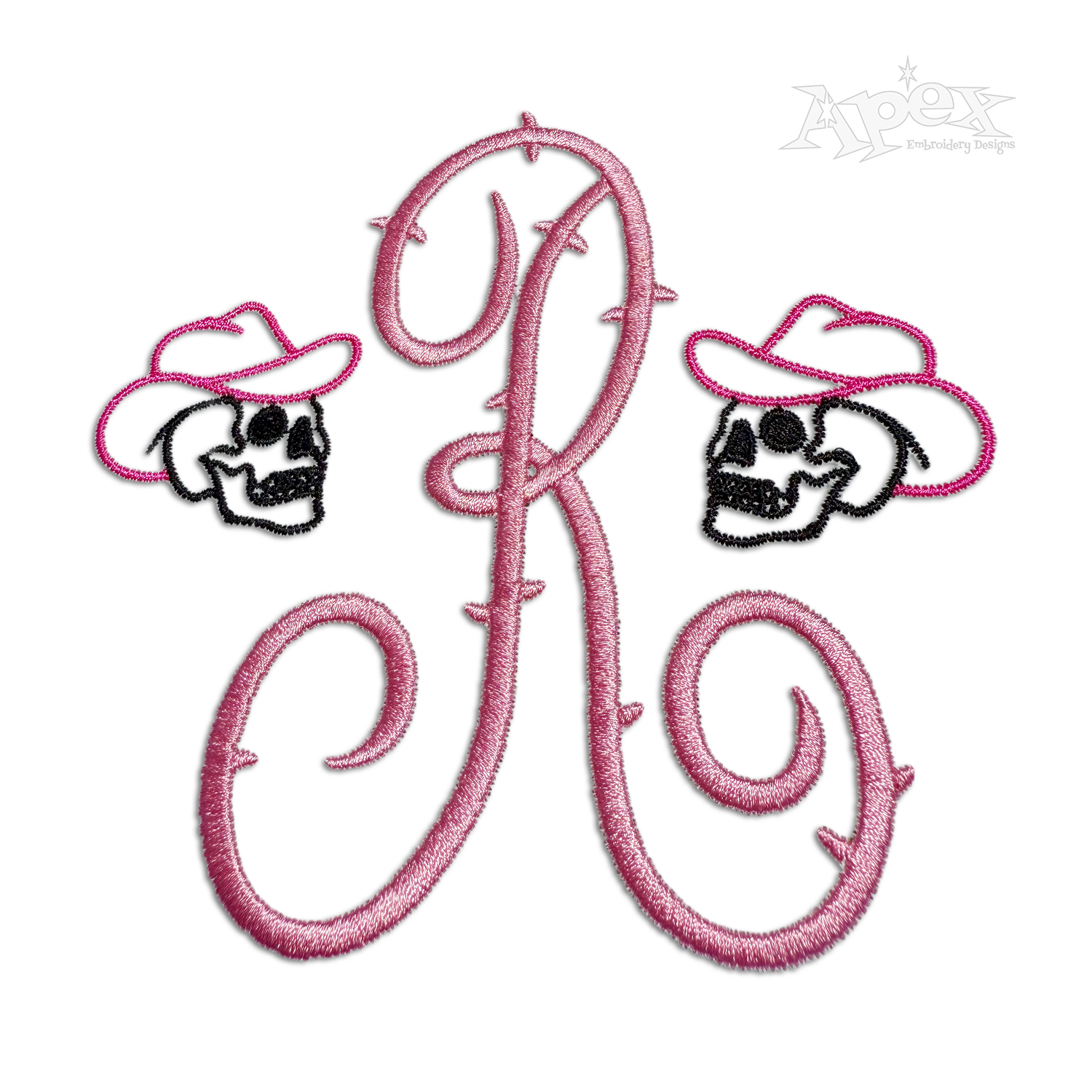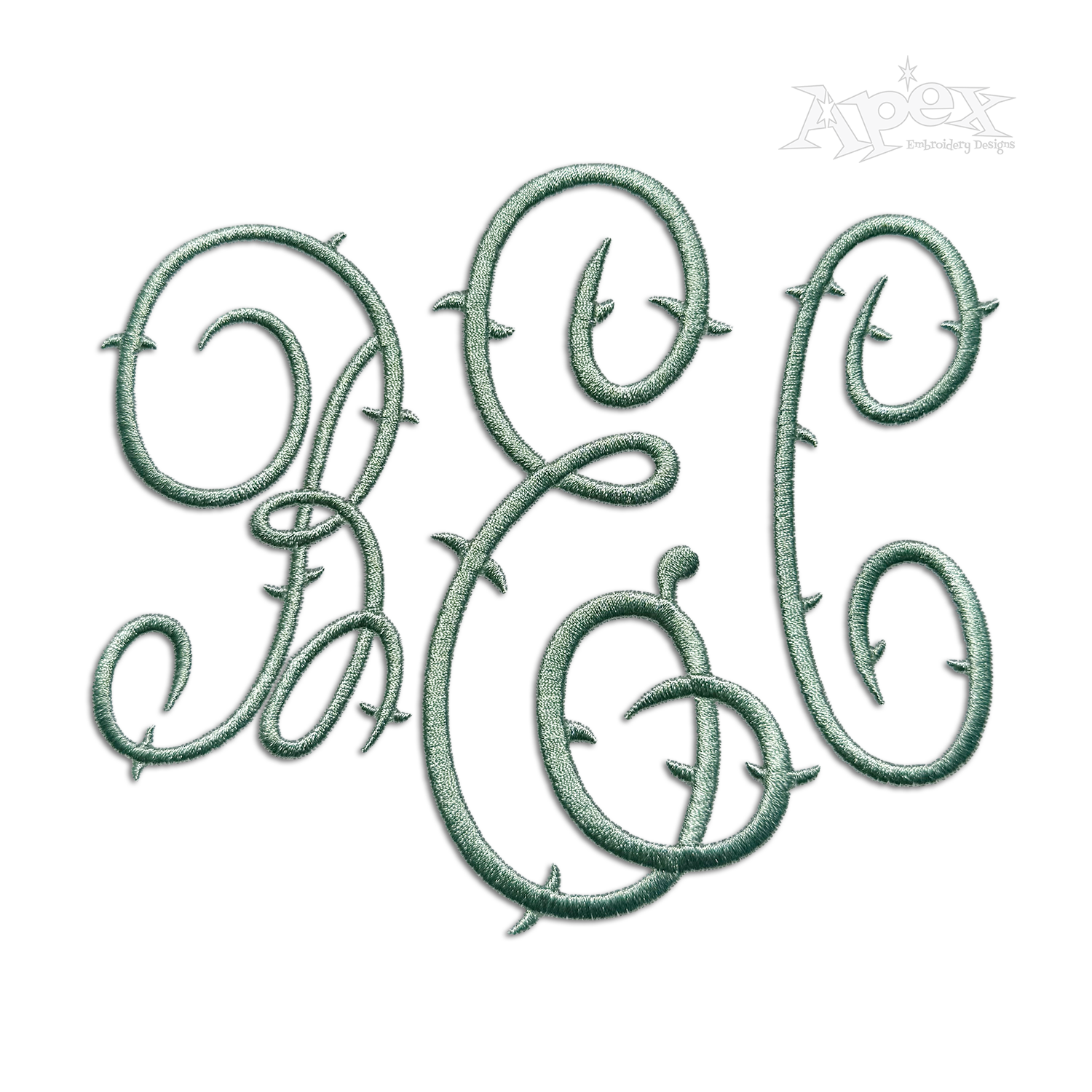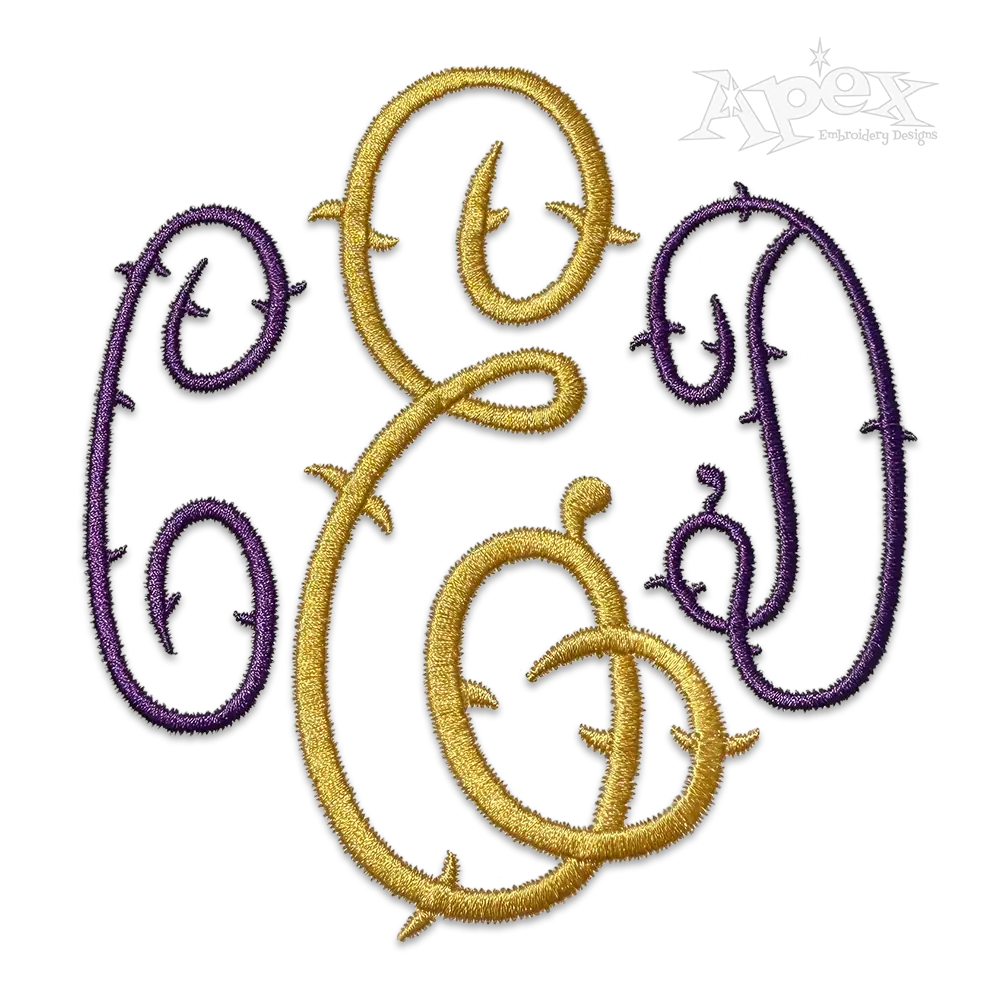
Thorn Monogram Embroidery Fonts
There is an exquisite tension in nature where raw, untamed beauty meets aristocratic refinement—a delicate harmony that inspired our Thorn Monogram. Born from sketches of vintage botanical briars and dramatic gothic ironwork, this collection commands attention through purposeful contrast. Each letterform unfurls with regal authority, balancing generous, sweeping curves against deliberate, sculpted spurs reminiscent of wild rose thorns. When stitched out, the design captures light across its dimensional satin contours, transforming textiles with a brooding elegance and bespoke heraldry that feels both centuries old and breathtakingly modern.
Engineered expressly for statement embroidery, grand-scale personalization, and high-impact centerpieces, the Thorn Monogram collection includes four commanding sizes to accommodate large-format hoops:
- 5-Inch Height: Ideal for substantial tote bags, decorative cushions, and tailored outerwear accents.
- 6-Inch Height: Perfect for luxury bath sheets, euro sham centerpieces, and heavy canvas duffels.
- 7-Inch Height: Designed for dramatic focal points on heirloom quilt panels and denim jacket backs.
- 8-Inch Height: A showstopping heraldic scale built for oversized wool throws, tapestries, and bespoke fiber art.
Project Ideas for Thorn Monogram
Because of its magnificent scale and intricate edge detailing, the Thorn Monogram thrives on substantial canvases where its sharp contours can breathe:
- Heirloom Bedding & Euro Shams: Center an oversized initial on crisp 400-thread-count percale, rich linen-cotton blends, or plush velvet decorative pillows.
- Bespoke Denim & Outerwear: Stitch a striking 7- or 8-inch single initial directly across the back yoke of a structured denim jacket, chore coat, or velvet smoking robe.
- Heavy Canvas Weekender Totes: Personalize luxury travel bags with a bold 5-inch or 6-inch monogram that pairs beautifully with leather trims and brass hardware.
- Dramatic Table Decor & Runners: Embroider the pointed ends of a grand dining table runner for formal autumn and winter banquets.
- Plush Resort Bath Sheets: Create a five-star master bath presentation with dense, high-contrast monogramming centered above decorative terry bands.
To maximize the architectural grace of these sprawling, thorny letterforms, thoughtful positioning is essential:
- Cushion & Sham Center: Position the exact geometric center of the initial in the true center of the pillow form to anchor the entire room's decor.
- Jacket Back Shoulders: Align the top third of the letter between the shoulder blades for a balanced couture drape that moves naturally with the wearer.
- Bottom Border of Throws: For fringed cashmere or wool blankets, position the monogram 4 to 6 inches above the lower fringe, centered along the width.
- Tote Bag Front Pocket: Center horizontally between the vertical strap webbing, leaving equal negative space along the top and bottom margins.
Thorn Monogram Craft & Letterform Details
Digitizing a font of this magnitude requires far more than simply enlarging vector curves; large-scale embroidery demands master-level physics to maintain needle harmony and structural integrity. Every spine, flare, and thorn spur in this alphabet has been manually digitized with adaptive stitch angles. These graduated inclinations ensure that thread reflects light dynamically across the broader strokes, giving each letter a lifelike, sculpted sheen.
Because the satin columns reach substantial widths across the 5- to 8-inch range, we incorporated intelligent underlay grids that reinforce the fabric foundation without adding stiff bulk. The signature thorn accents feature calibrated density compensation, allowing the delicate points to finish needle-sharp without bunching or flagging the textile. The result is a fluid, velvet-like satin flow that glides effortlessly across your hoop, delivering unrivaled luxury embroidery with every stitch.